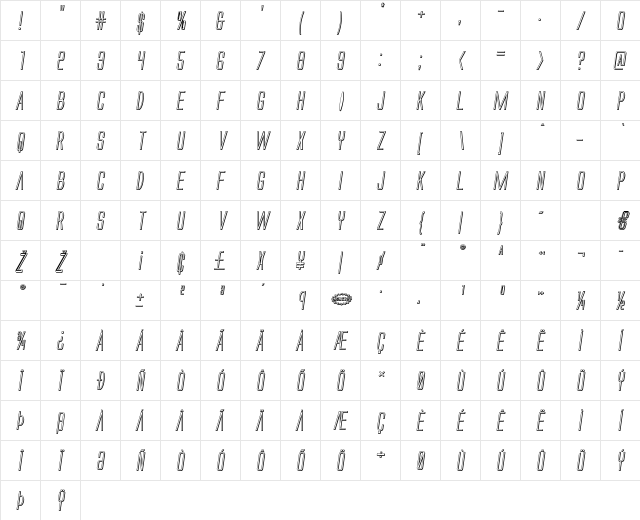
Alien League 3D Italic Italic
Complete Alien League 3D Italic Italic glyph index. Displaying only characters natively supported by Alien League 3D Italic Italic font.
Design Context for Alien League 3D Italic
Alien League 3D Italic is a composed and adaptable typeface that performs quietly and consistently across a wide range of design contexts. The slanted form adds forward momentum and visual energy.
Pro Tip: Use Alien League 3D Italic for emphasis, pull quotes, and subheadings where its slanted energy can add rhythm to the layout.